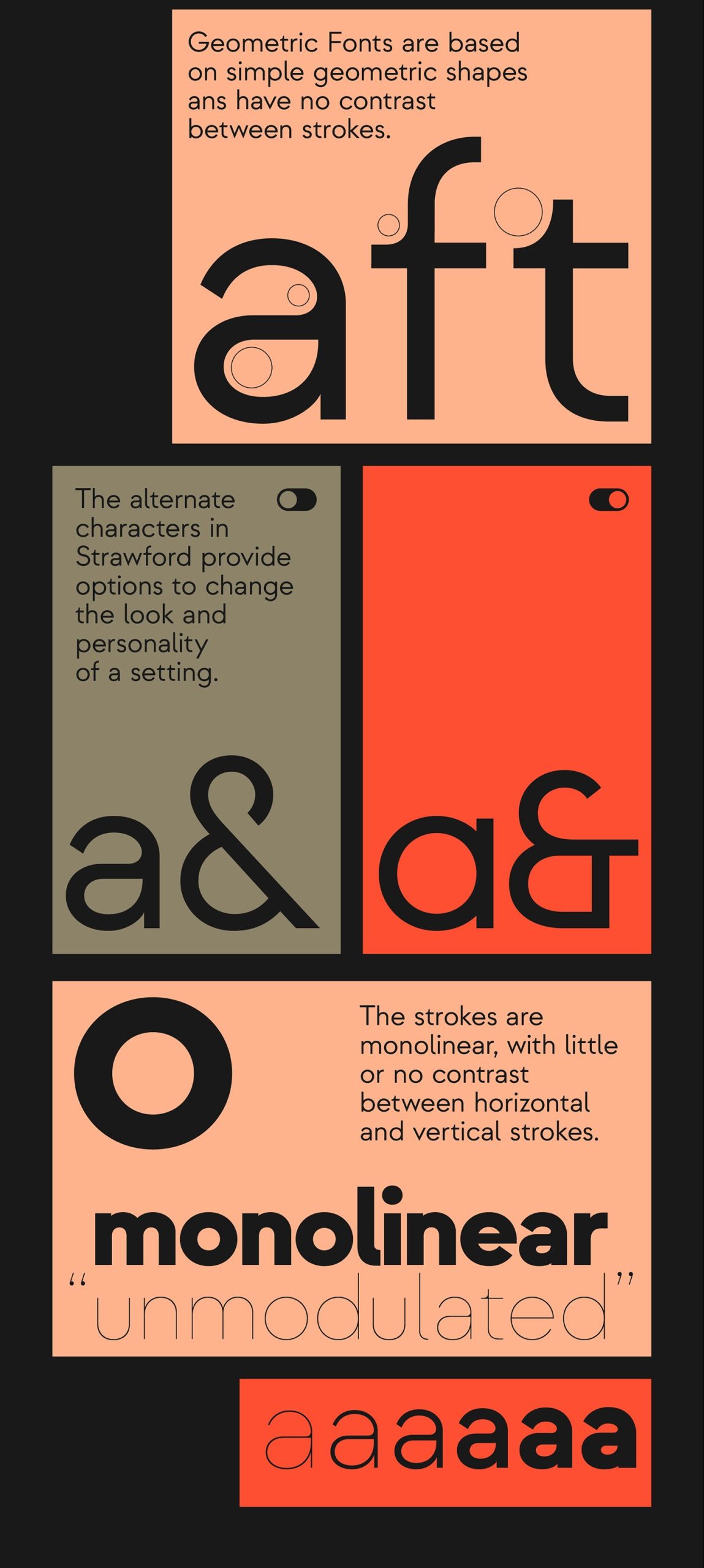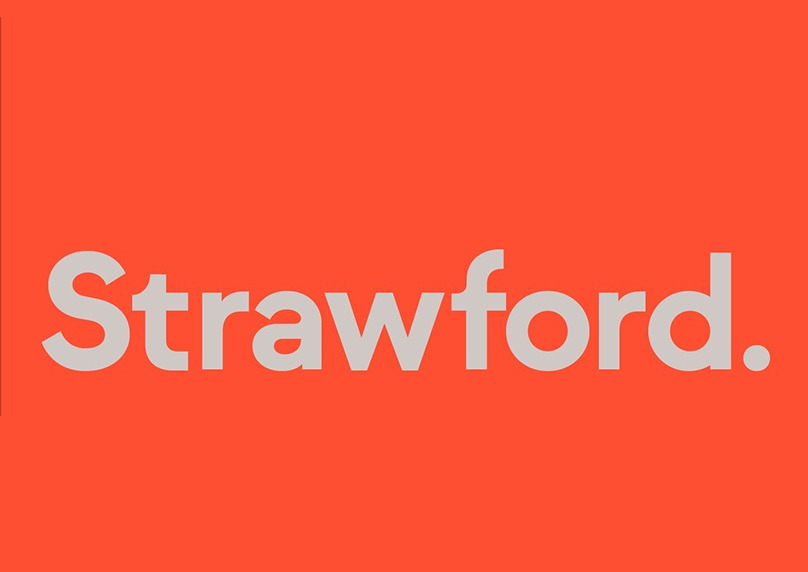
Strawford Sans Serif Font
This font is a functional sans serif that includes open character openings, a uniform distribution of white and black, and excellent readability. It’s designed and shared by atipo. This is a low contrast neo-geometric sans defined by minimalism, geometry and purity of form with a balanced width, generous x-height, and short ascenders and descenders, giving it a simple and clean look. Strawford font family comes in 7 weights plus italics and the personal character of its shapes makes Strawford a recognizable, legible and functional typeface and provides a wide range of choices for any design project and it is especially recommended for UI/UX and app design, branding, logo creation, advertising or packaging.